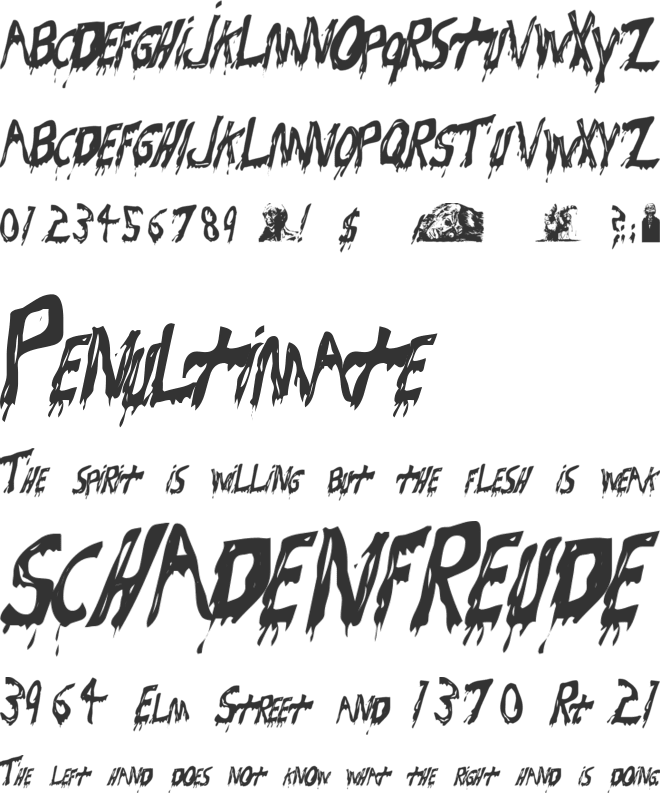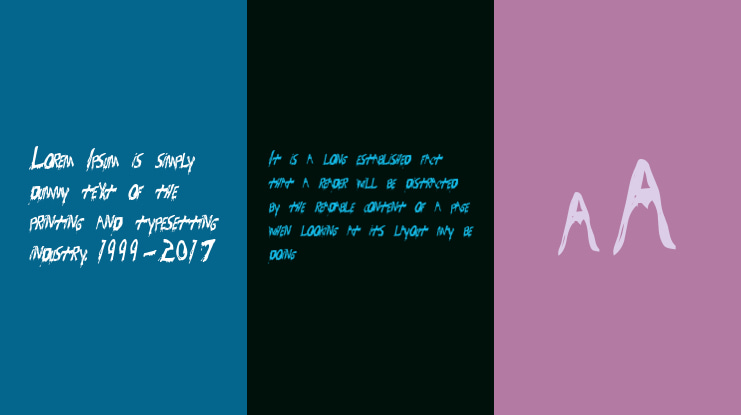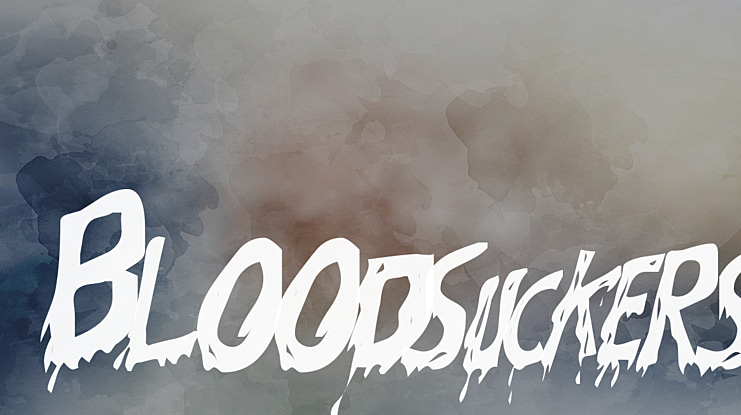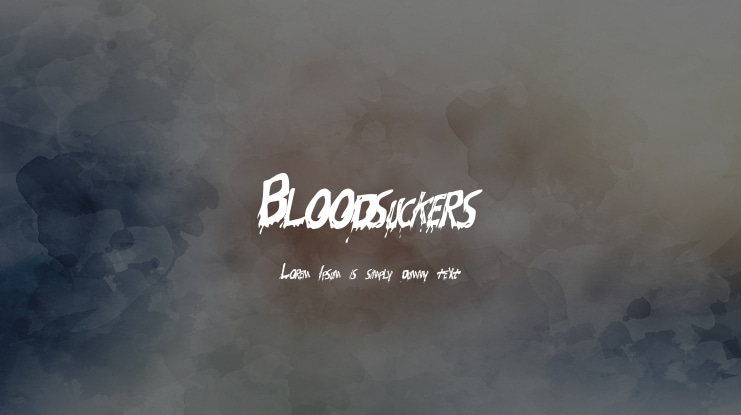
Bloodsuckers Font
...was hacked into existence by copying the title of a gruesome 50's cheapo horror comic and mad-doctoring the letters that
AREN'T in the words, "BLOOD-SUCKERS" into being.